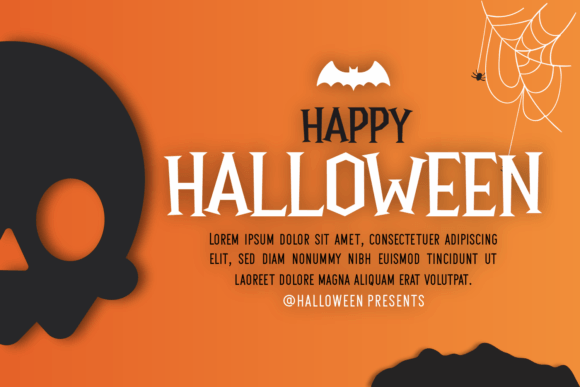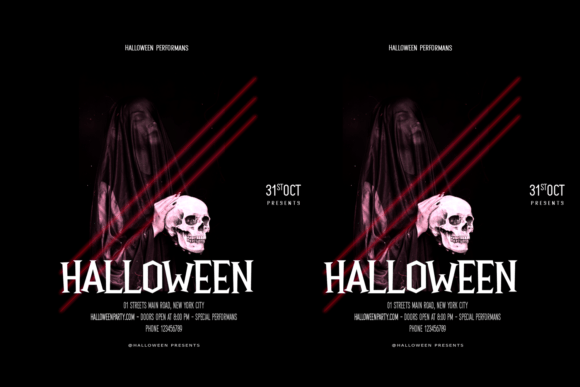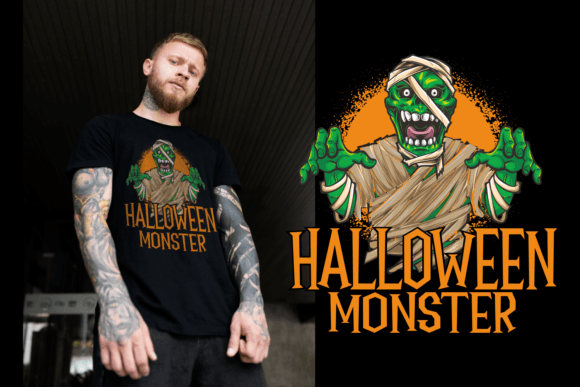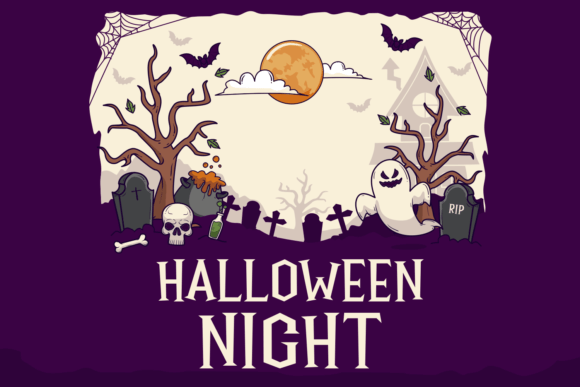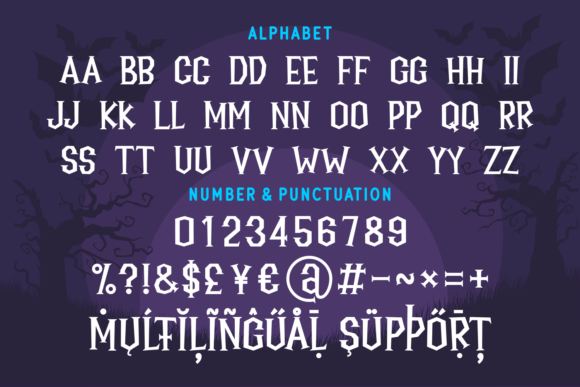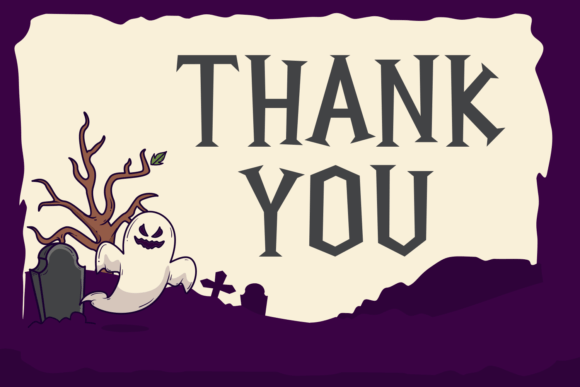
Halloween Magic in Every Letter
As the spooky season approaches, I find myself lost in a sea of creative possibilities. The jack-o’-lanterns are carved, the cobwebs are hung, and the costumes are planned – but what’s missing? That’s right, the perfect font to set the mood! That’s where the Halloween Creepy Night Font comes in – a creepy Halloween handwritten font that’s sure to make your invitations, t-shirts, and cards stand out.
With its eerie charm and handcrafted feel, this font is a must-have for designers looking to add a touch of Halloween magic to their projects. Whether you’re creating spooky decorations, creepy crafts, or even a haunted house playlist, the Halloween Creepy Night Font is the perfect addition to your toolkit.
Halloween Creepy Night Font Key Features
- Unique Characteristics: Hand-drawn, spooky, and eerie design elements, ideal for Halloween-themed projects
Halloween Creepy Night Font Review
I recently had the chance to work with the “Halloween Creepy Night Font” and I must say, it’s a unique addition to any design project. Here are my honest thoughts on what works well and what doesn’t.
- The font is perfect for creating spooky and eerie designs, especially for Halloween-themed projects.
- The bold and creepy style of the font adds a sense of drama and tension to any design.
- The font is highly customizable, allowing designers to adjust the size, color, and style to fit their needs.
- The font may be too bold for some designs, making it difficult to read in certain contexts.
- The font is not suitable for large blocks of text, as it can become overwhelming and difficult to read.
- The font may not be suitable for all types of designs, such as corporate or professional projects.
Overall, I think the “Halloween Creepy Night Font” is a great addition to any designer’s toolkit, but it’s not for every project. It’s perfect for creating spooky and eerie designs, but may not be suitable for more conservative or professional designs.
Halloween Creepy Night Font: A Practical Application Guide
Some tips for getting the most out of the Halloween Creepy Night Font include:
- Use it for spooky titles, headings, or quotes.
- Pair it with other Halloween-themed fonts for a unique look.
- Experiment with different font sizes and styles to create a creepy atmosphere.
Q: What is the recommended font size for using Halloween Creepy Night?
The recommended font size for using Halloween Creepy Night depends on the specific design and application. However, as a general rule, we recommend using font sizes between 18pt and 48pt for optimal readability and visual impact. This will help ensure that the font is easily readable and effectively conveys the spooky atmosphere of Halloween night.